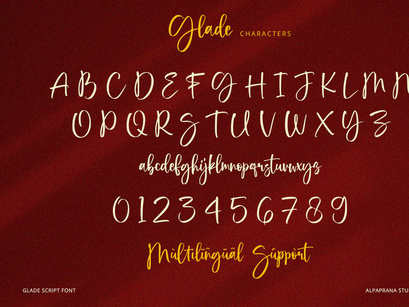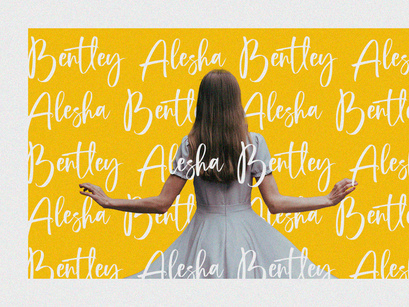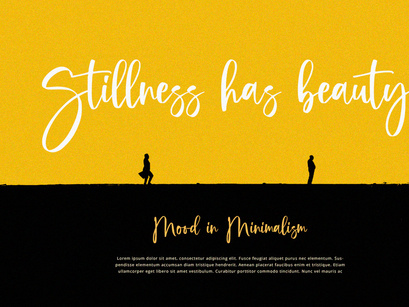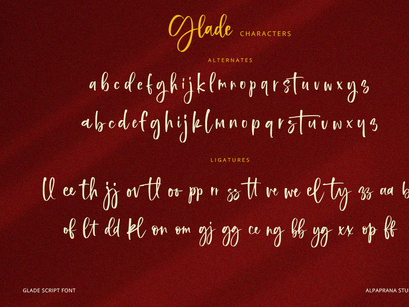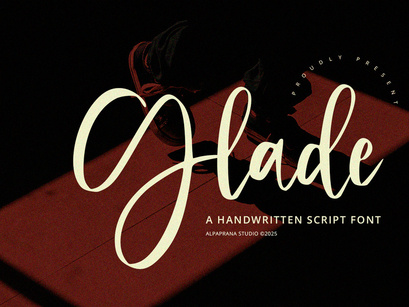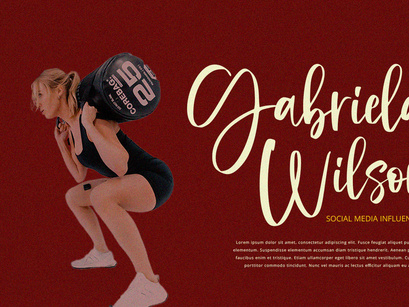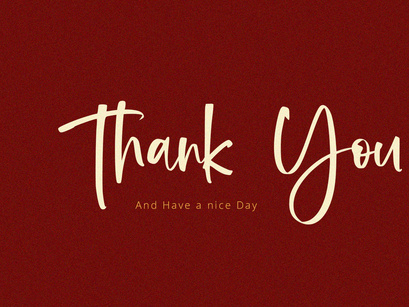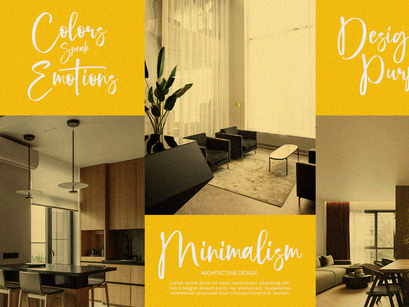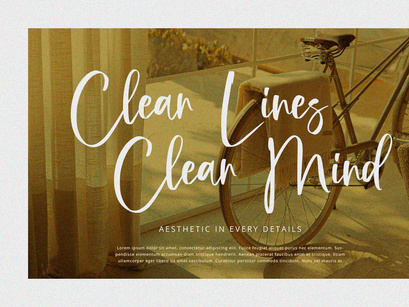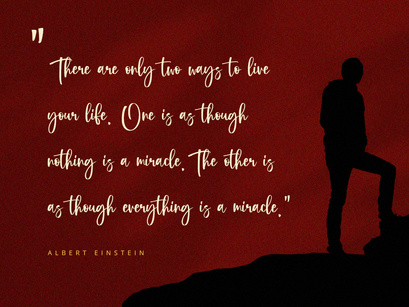
Glade is a handwritten script font with chic and modern feels. It will be perfectly used for Branding, Logo Design, Lettering, Logotype, Clothing, Poster, magazine, packaging, posters, shopping bags, t-shirts, book covers, photography, special events and other design project.